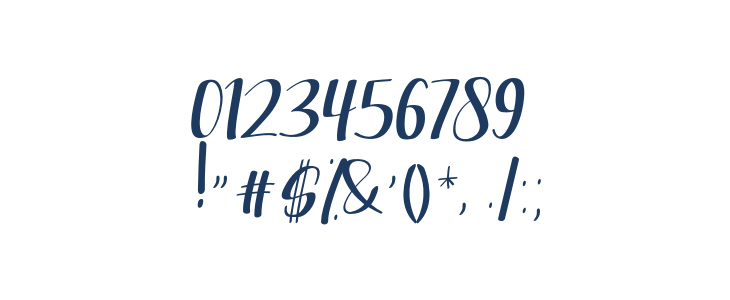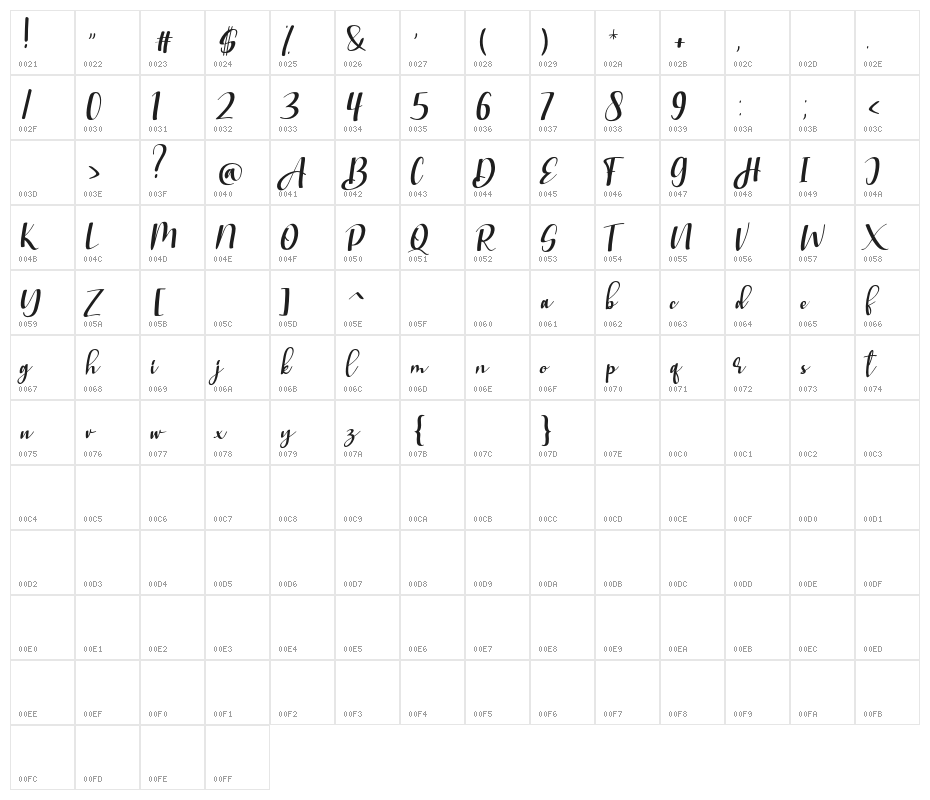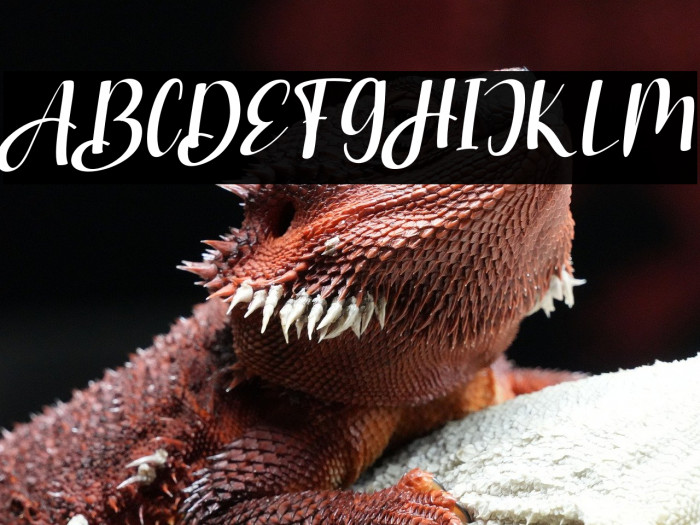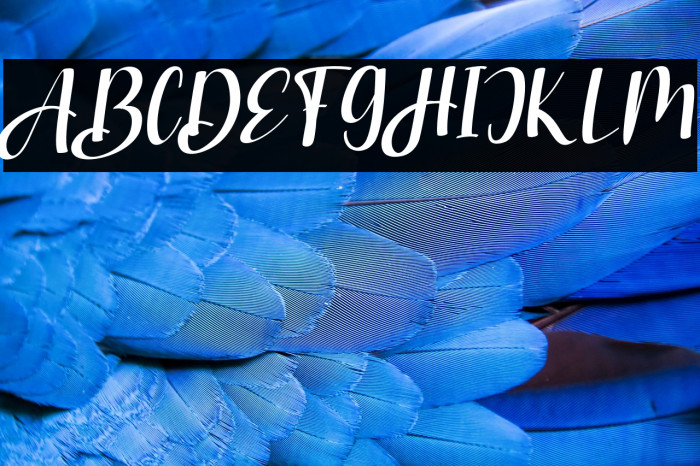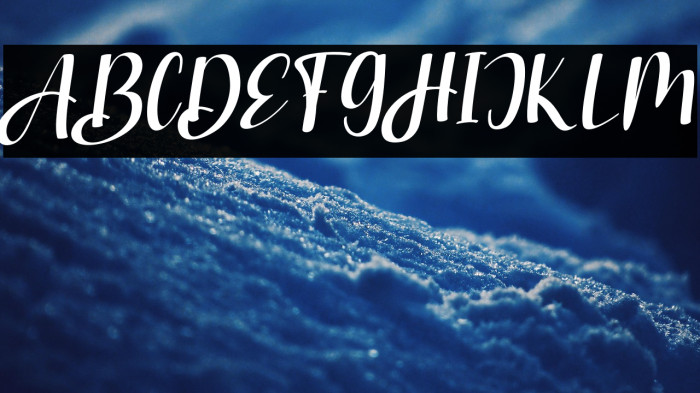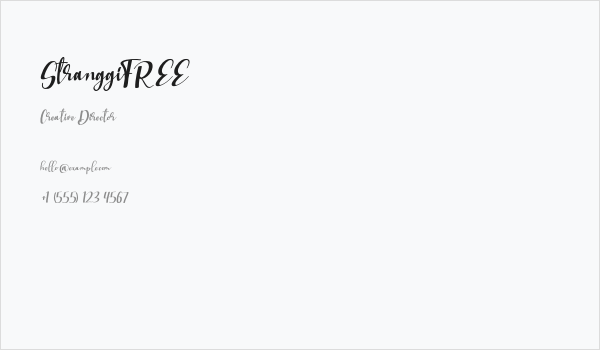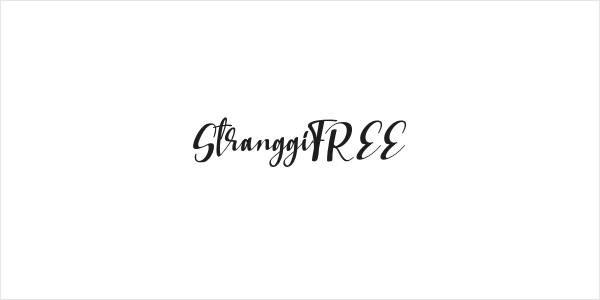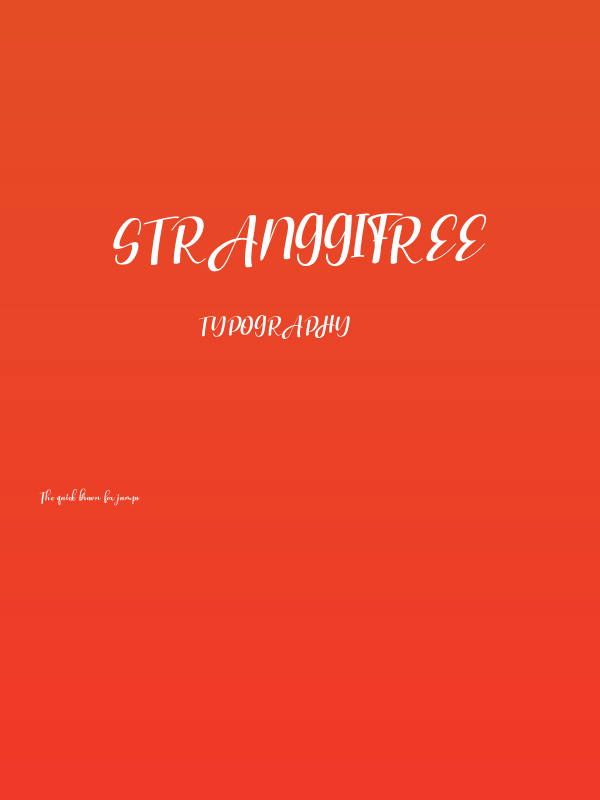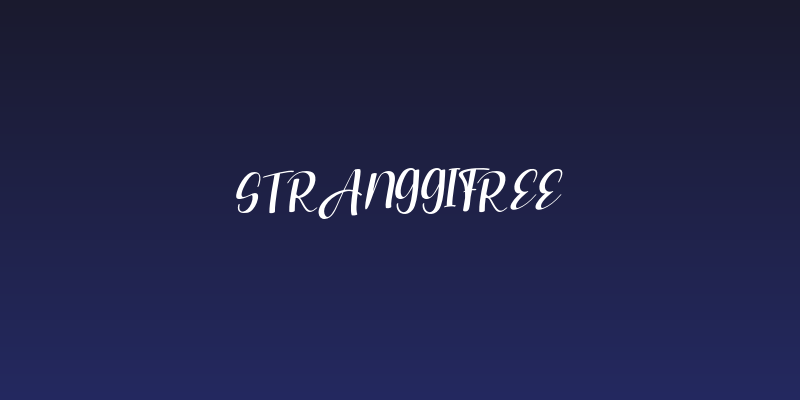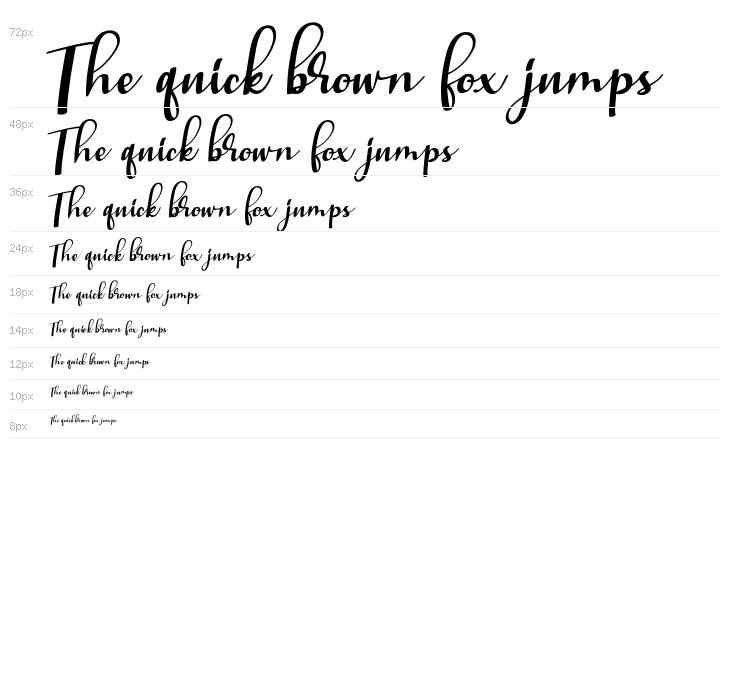
StranggiFREE Font
StranggiFREE Description
This font features a dynamic and elegant script style, characterized by its flowing and connected letterforms. The uppercase letters exhibit a bold and sweeping design, with a slight slant that adds a sense of motion and grace. The lowercase letters maintain a consistent style, with smooth curves and loops that enhance readability while preserving the font's decorative appeal. The numerals are bold and align well with the overall script theme, providing a cohesive look. Special characters are thoughtfully designed to match the elegance of the alphabet, making this font versatile for various uses.
| Overall Style | Elegant, Decorative |
| Use Case | Logos, Invitations, Branding |
| Proposed Projects | Ideal for wedding invitations, branding, logo design, and elegant stationery. |